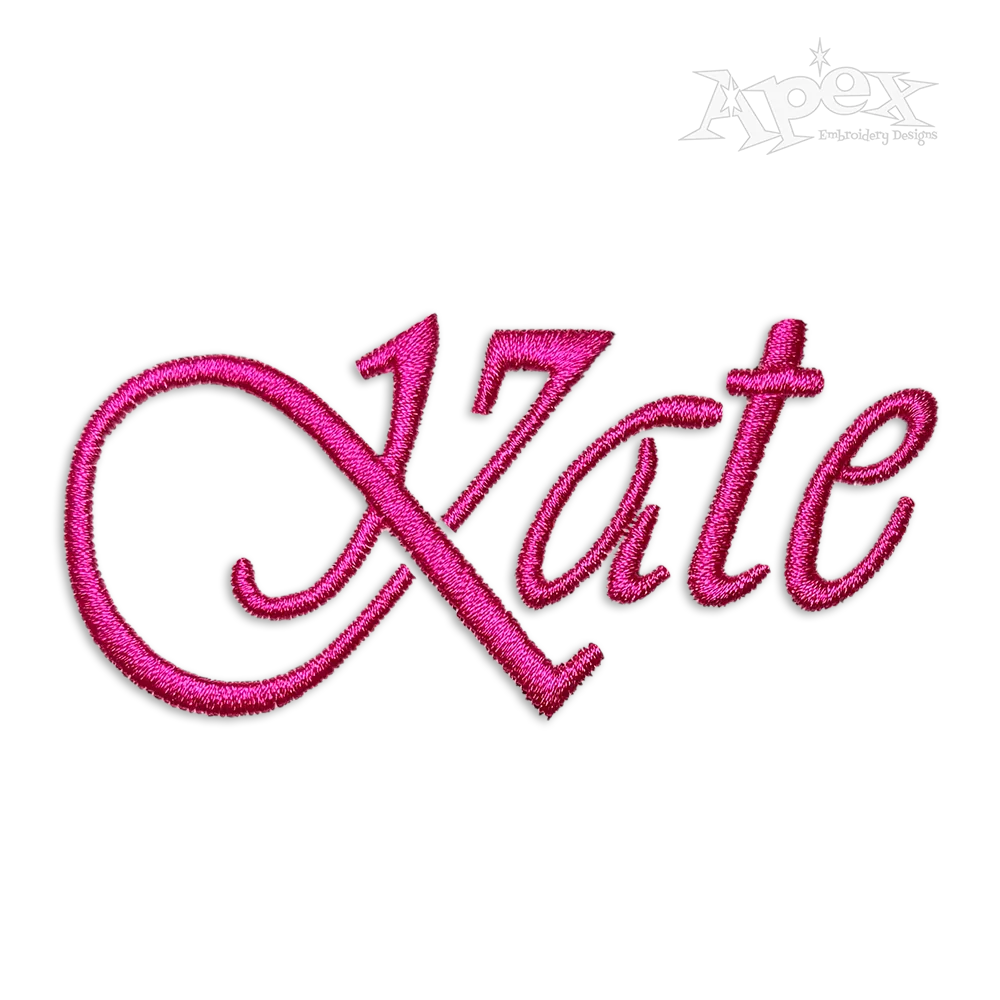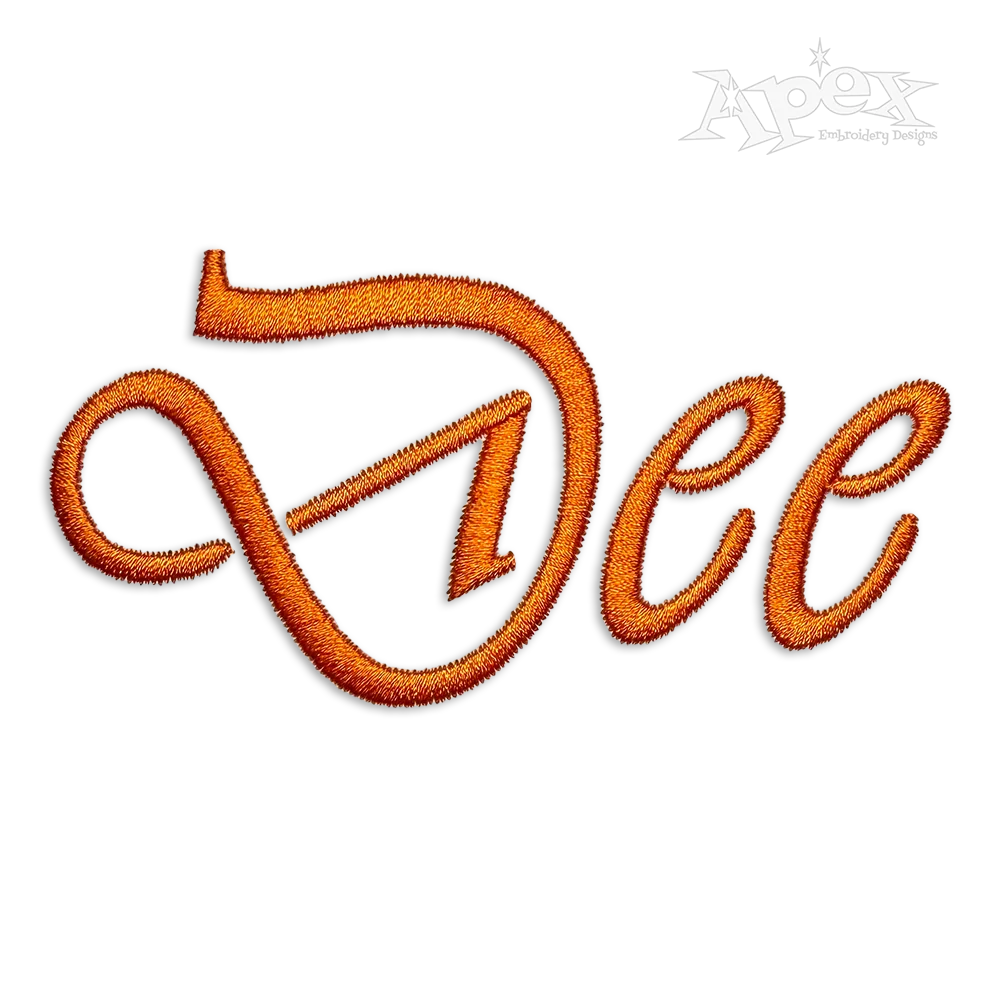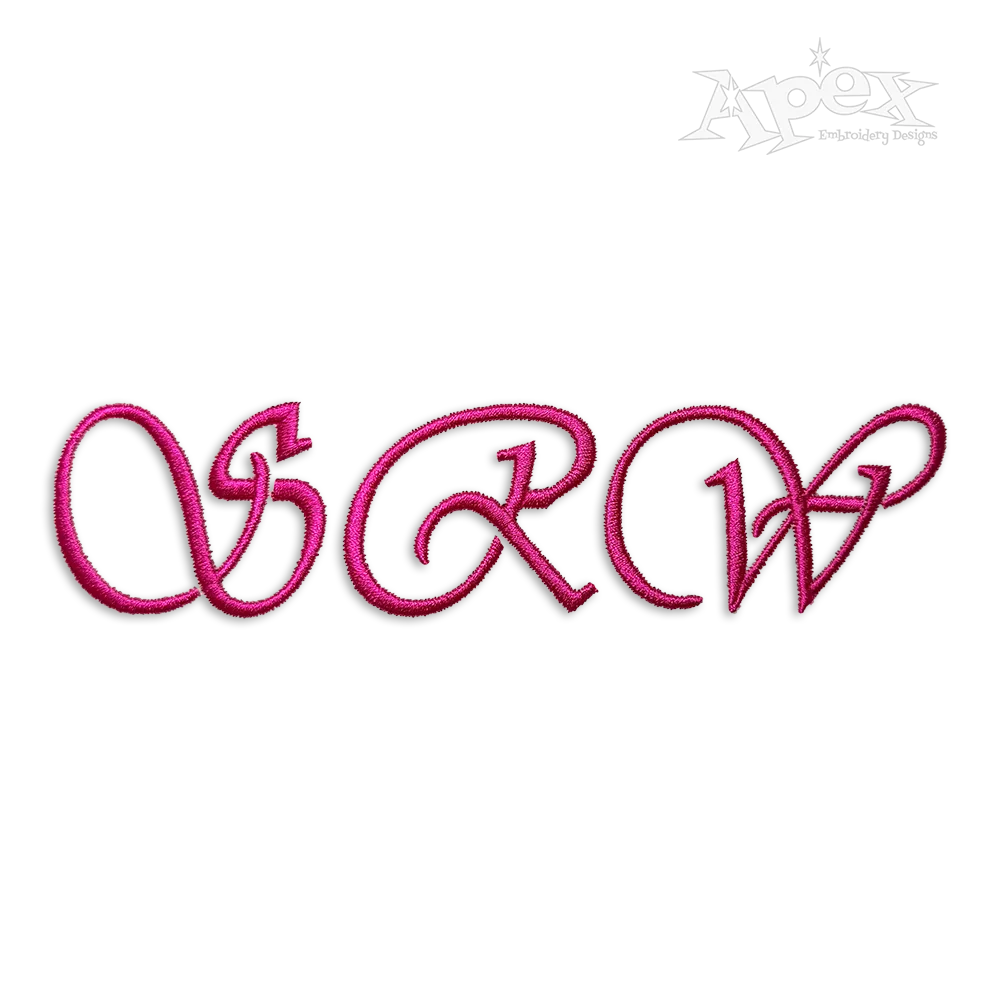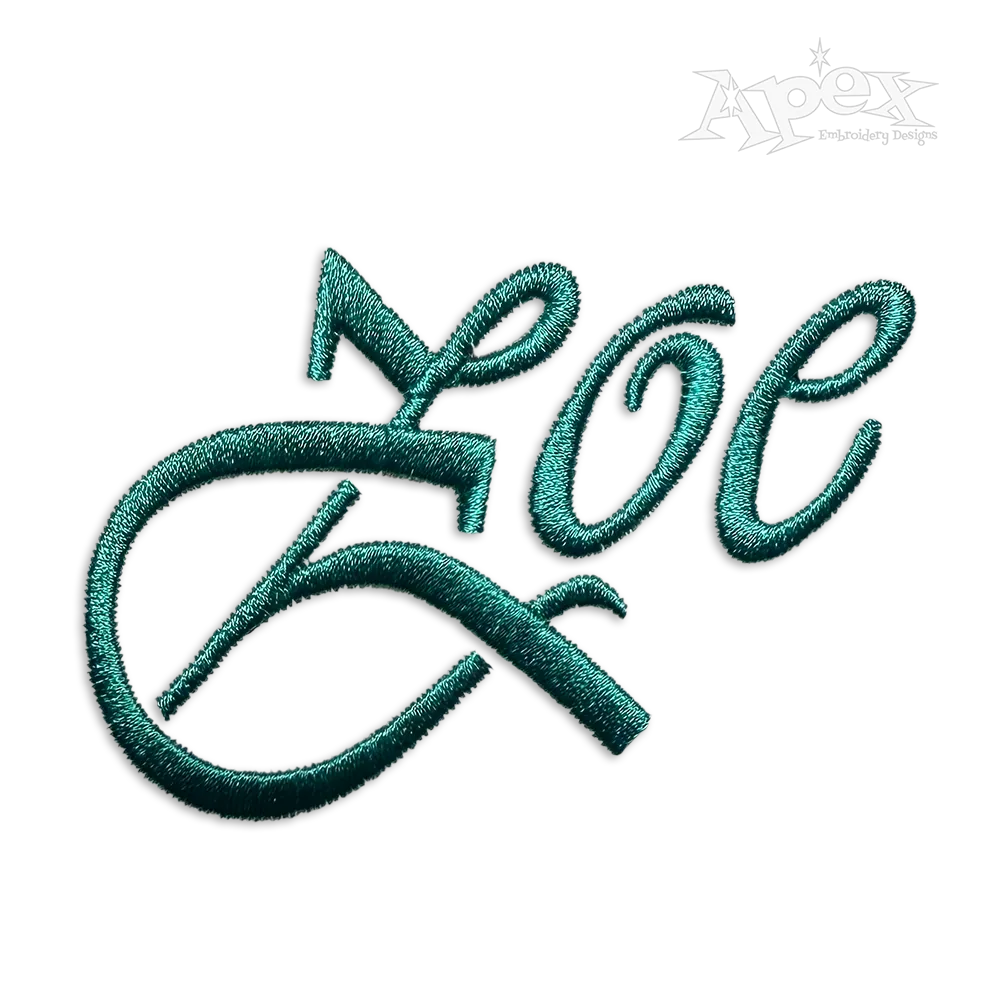
Modern Calligraphy Embroidery Font
Drawn from fluid ink strokes on textured cotton rag, Modern Calligraphy embroidery font brings organic movement to needlework. Every loop holds hand-lettered grace. Digitized satin columns follow dynamic pen pressure, capture light across threads, turn bespoke stitching into tactile luxury. Curved swashes dance with effortless rhythm, transforming personal monograms into timeless textile art.
- Design Inclusions: Complete uppercase and lowercase modern calligraphy alphabet set.
- Stitch Quality: Density-mapped satin columns, reinforced underlay, smooth travel stitches.
Project Ideas for Modern Calligraphy
Elevate personal projects, custom monogramming, and bespoke merchandise across curated collections:
- Bridal Robes & Wedding Keepsakes: Stitch bride names or initials across silk kimono backs, velvet slippers, lingerie pouches.
- Luxury Table Linens: Embellish linen cocktail napkins, hemstitched runners, dinner napkins for refined entertaining.
- Bespoke Resort Wear: Monogram sun hats, breezy linen shirts, poolside coverups with coastal chic script.
- Canvas Totes & Daily Accessories: Apply bold lettering on weekenders, cosmetic clutches, travel organizers.
- Heirloom Bedding & Personalized Gifting: Personalize crisp cotton pillowcases, nursery duvets, milestone baby blankets.
- Corner Diagonal: Angle monograms 45 degrees across cocktail napkin corners, dinner linens, pocket squares.
- Center Chest: Place names or initials centered across sweatshirt panels, denim jackets, loungewear tops.
- Cuff & Hem: Stitch subtle single initials on shirt cuffs, robe lapels, cardigan hems.
- Border Alignment: Run full names or words along edge borders on heirloom blankets, table runners.
Modern Calligraphy Craft & Letterform Details
Design balances modern brush lettering with stitch precision. Broad downstrokes taper into whisper-thin hairlines. Satin stitch alphabet uses directional density mapping. Stitch angles turn corners smoothly, prevent thread buildup, stop fabric puckering. Letter connections flow naturally, mimic authentic fountain pen gestures across luxury textiles. Hand-crafted underlay builds structural loft so letters sit proud on textured weave. Balanced pull compensation guarantees clean edges across delicate silks or heavy canvas weaves.